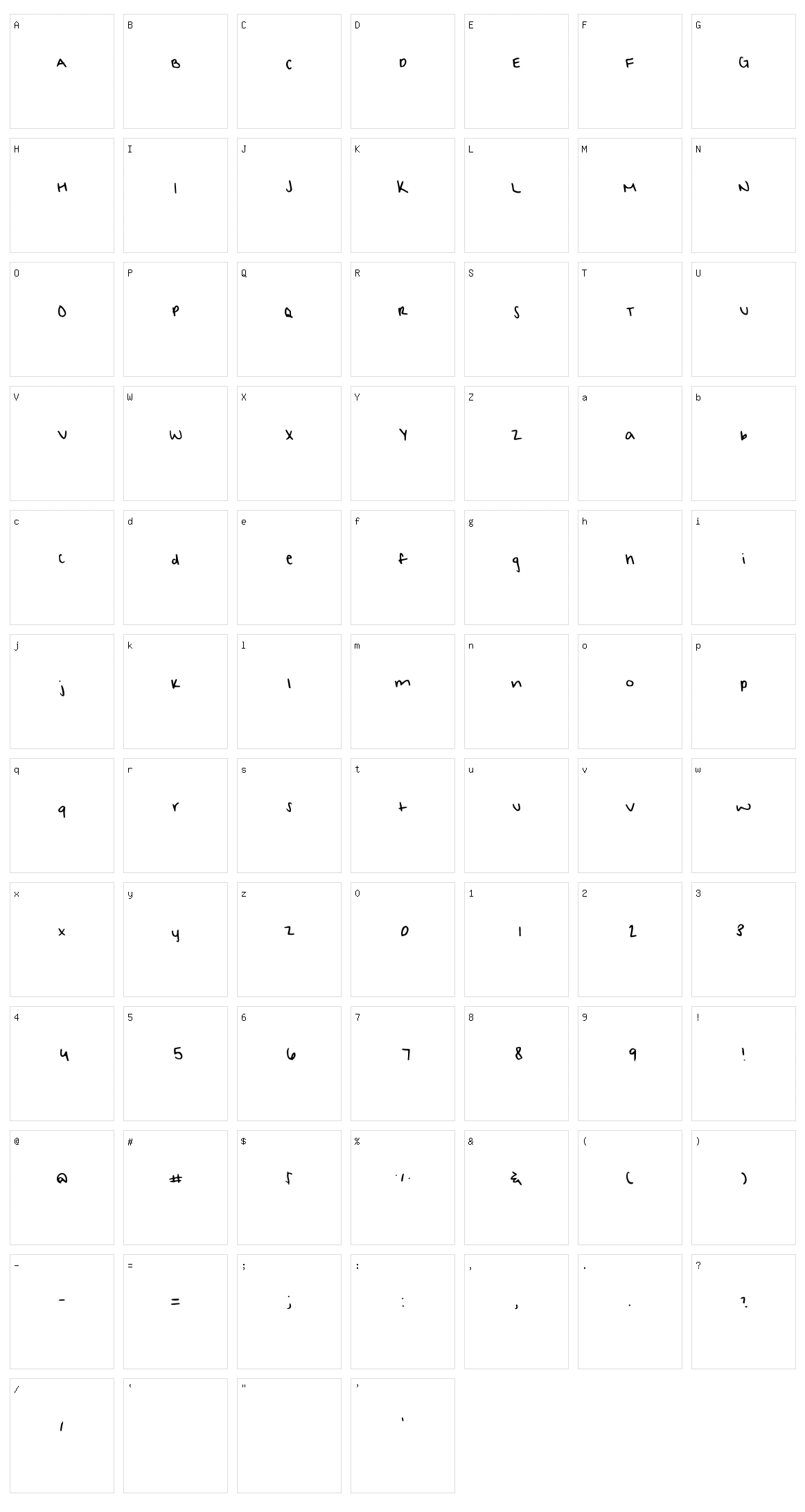
The free font Girl Next Door is carefully designed by Gabby Burton, showcasing a thoughtful balance of creativity and usability and falls under the Script font style. When you download the ZIP file, it contains only 12.99 KB of font files, making it lightweight and quick to download. Please review the license details below to understand permitted usage and distribution rights. If license information is not available, we recommend using this font for personal projects only or contacting the author directly for commercial usage permissions.